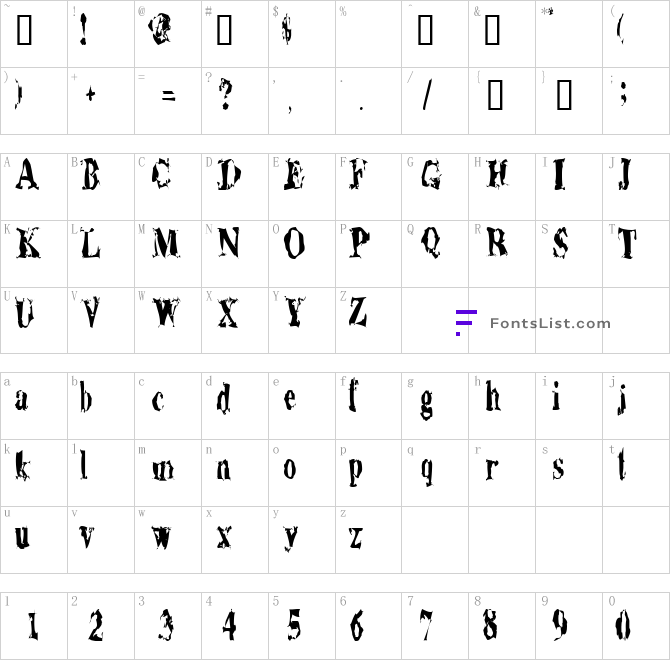
- Font Name:AluminumShredCondensed
AluminumShredCondensed.ttf is a very beautiful artistic font, AluminumShredCondensed.ttf is widely used in the design and printing of various books and pictures,AluminumShredCondensed.ttf has a strong visual impact,AluminumShredCondensed.ttf is a commonly used font in newspapers, magazines and books, and is used in posters, e-commerce Poster design, store design, logo design, font design and other fields.AluminumShredCondensed.